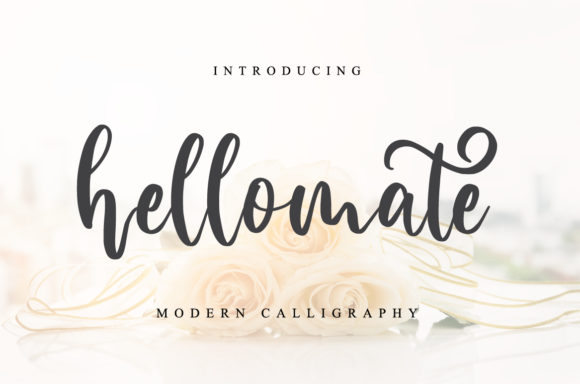
Journey into the world of Hellomate, a captivating script font that exudes warmth and charm. Inspired by the beauty of handwritten notes, this font invites you to unleash your creativity and add a personal touch to your designs. Whether you're crafting heartfelt letters, designing whimsical invitations, or creating eye-catching social media posts, Hellomate is your perfect companion.
Immerse yourself in the beauty of Hellomate's meticulously crafted letters, each one a testament to FatmaStudio's dedication to excellence. The font's distinct and well-rounded curves dance across the page, creating a visual symphony that captures the essence of human connection. Its friendly and approachable style makes it ideal for projects that aim to engage and captivate audiences.
With Hellomate, versatility knows no bounds. Its adaptable nature allows it to seamlessly blend into a myriad of design aesthetics, from classic and elegant to modern and playful. Whether you're working on branding materials, website designs, or product packaging, Hellomate effortlessly elevates your creations, adding a touch of sophistication and charm.
Unlock the endless possibilities that await you with Hellomate. Its versatility extends to a wide range of applications, including logos, posters, flyers, and social media graphics. Let your imagination soar as you explore the countless ways to incorporate Hellomate's captivating charm into your designs.
Don't miss out on the opportunity to make a lasting impression with Hellomate. Its unique character and versatility make it an indispensable tool for designers and creatives seeking to create truly exceptional work. Embrace the power of Hellomate today and embark on a journey of creativity and self-expression.